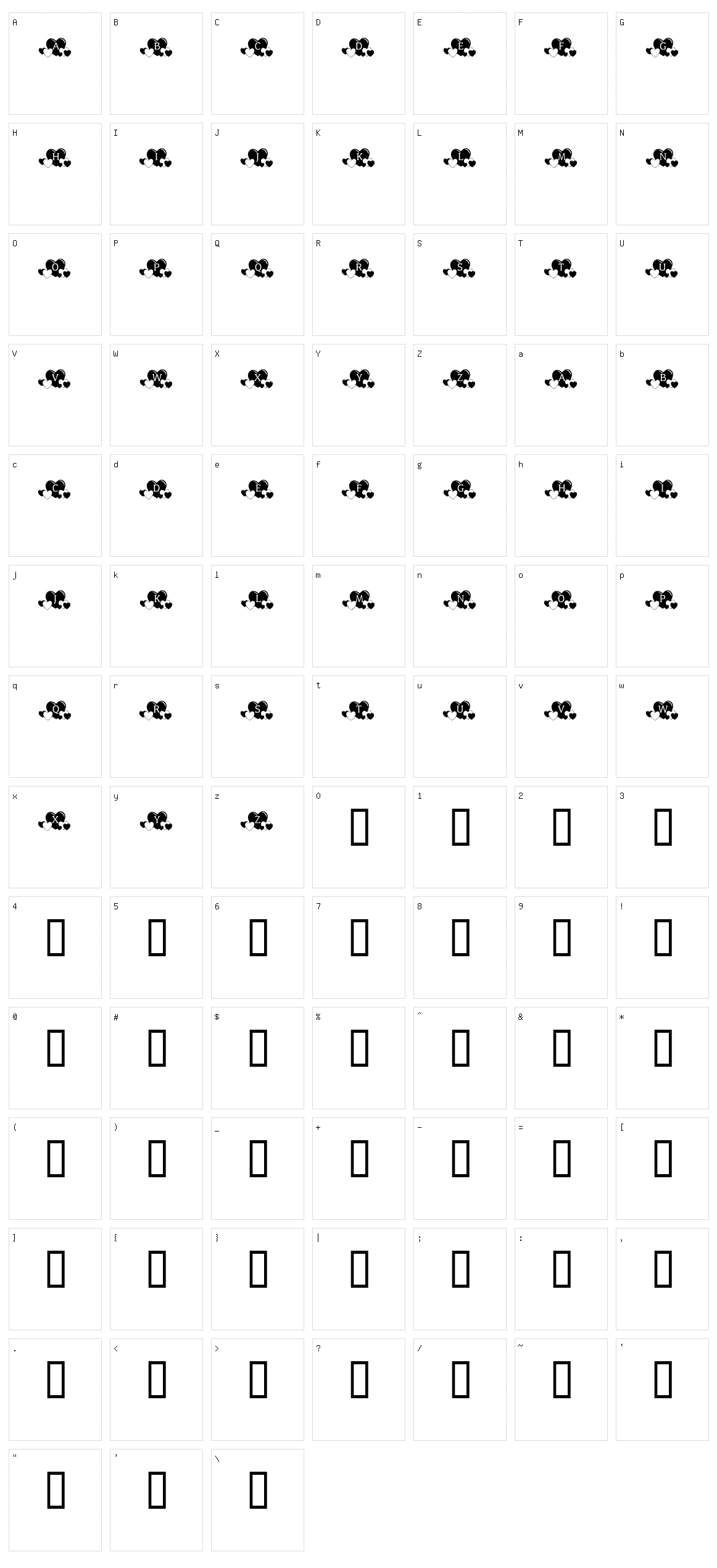
The free font KR Lots of Hearts is carefully designed by Kat's Fun Fonts, showcasing a thoughtful balance of creativity and usability and falls under the Valentine font style. When you download the ZIP file, it contains only 5.82 KB of font files, making it lightweight and quick to download. Please review the license details below to understand permitted usage and distribution rights. If license information is not available, we recommend using this font for personal projects only or contacting the author directly for commercial usage permissions.